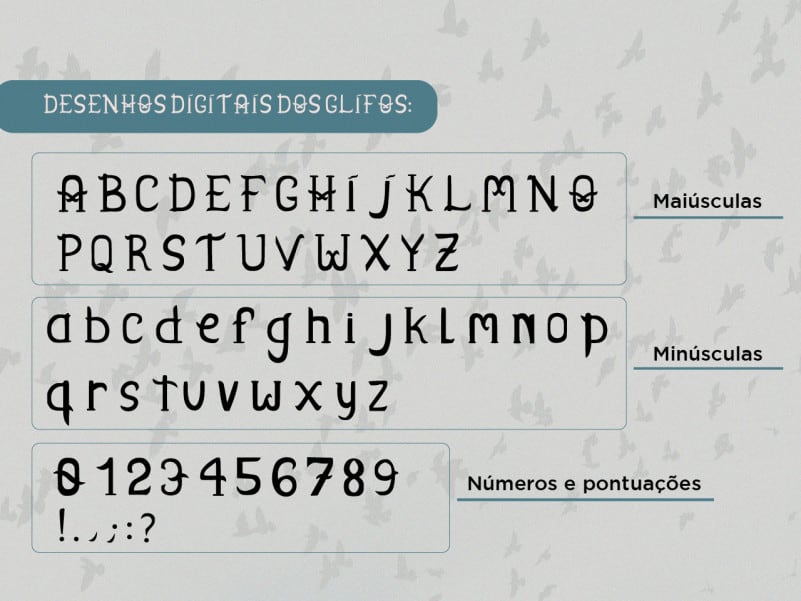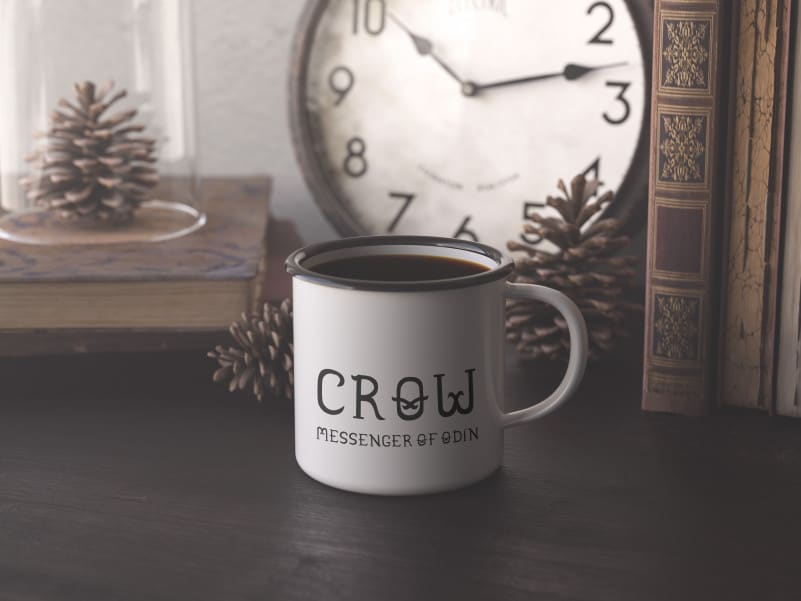
Crow Display Font
Fountain inspired by the crow, due to the details in its glyphs that resemble the silhouette of the animal. Very good for many project design like logo type, typography, branding, label, packaging, or everything your design need with vintage style.
Fonte com inspiração no corvo, por conta dos detalhes em seus glifos que lembram a silhueta do animal.